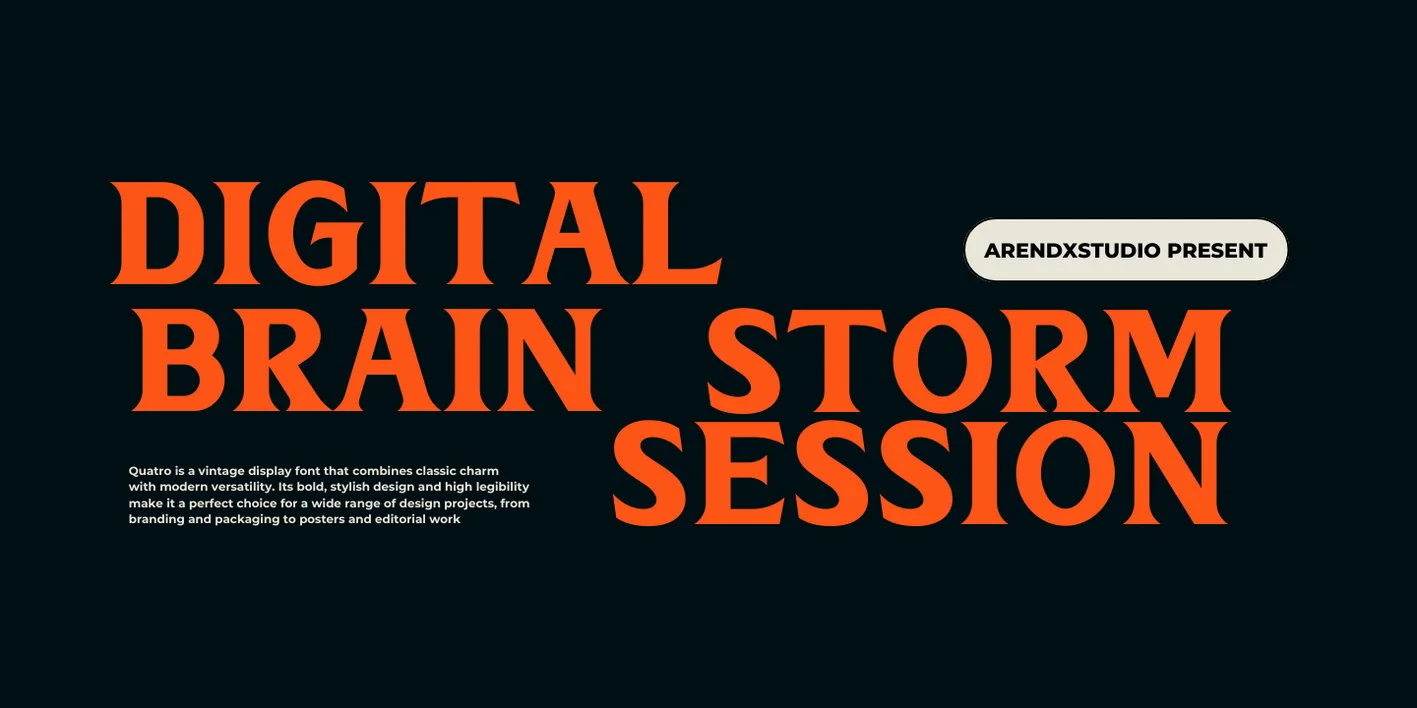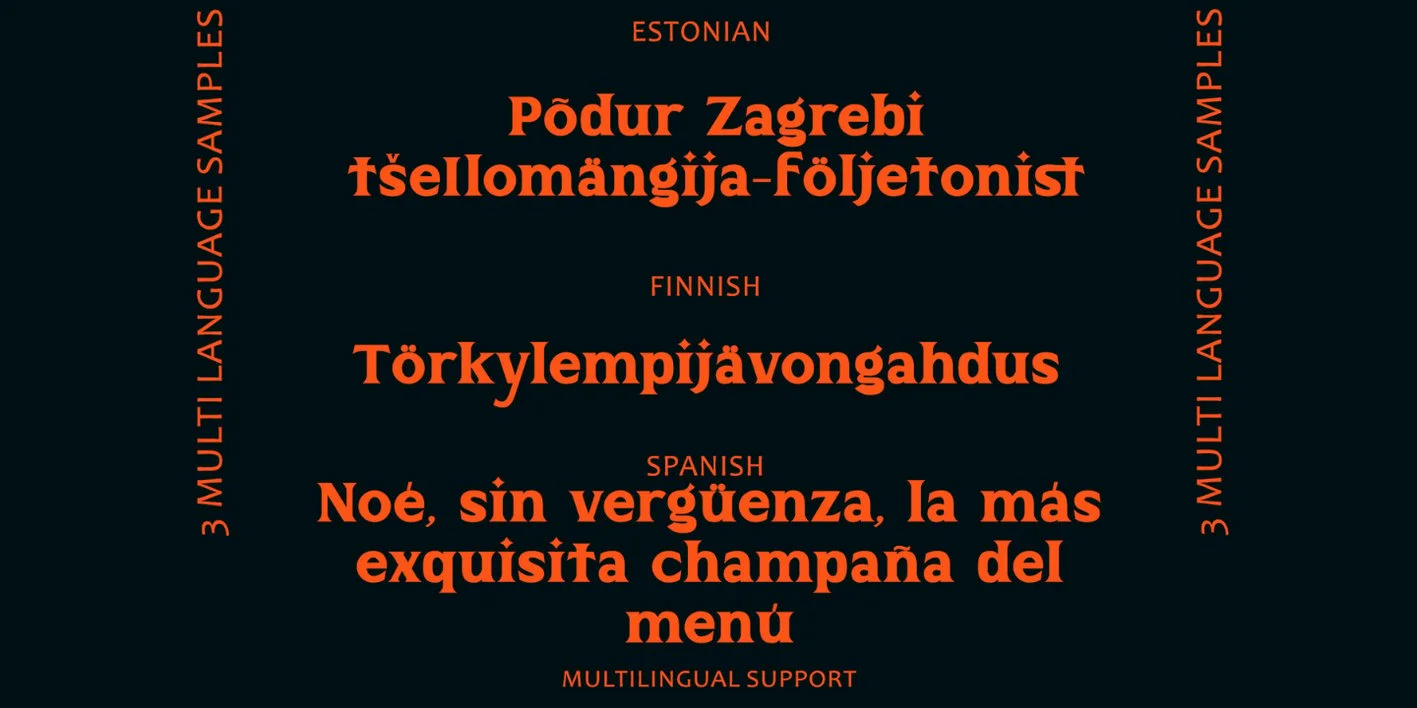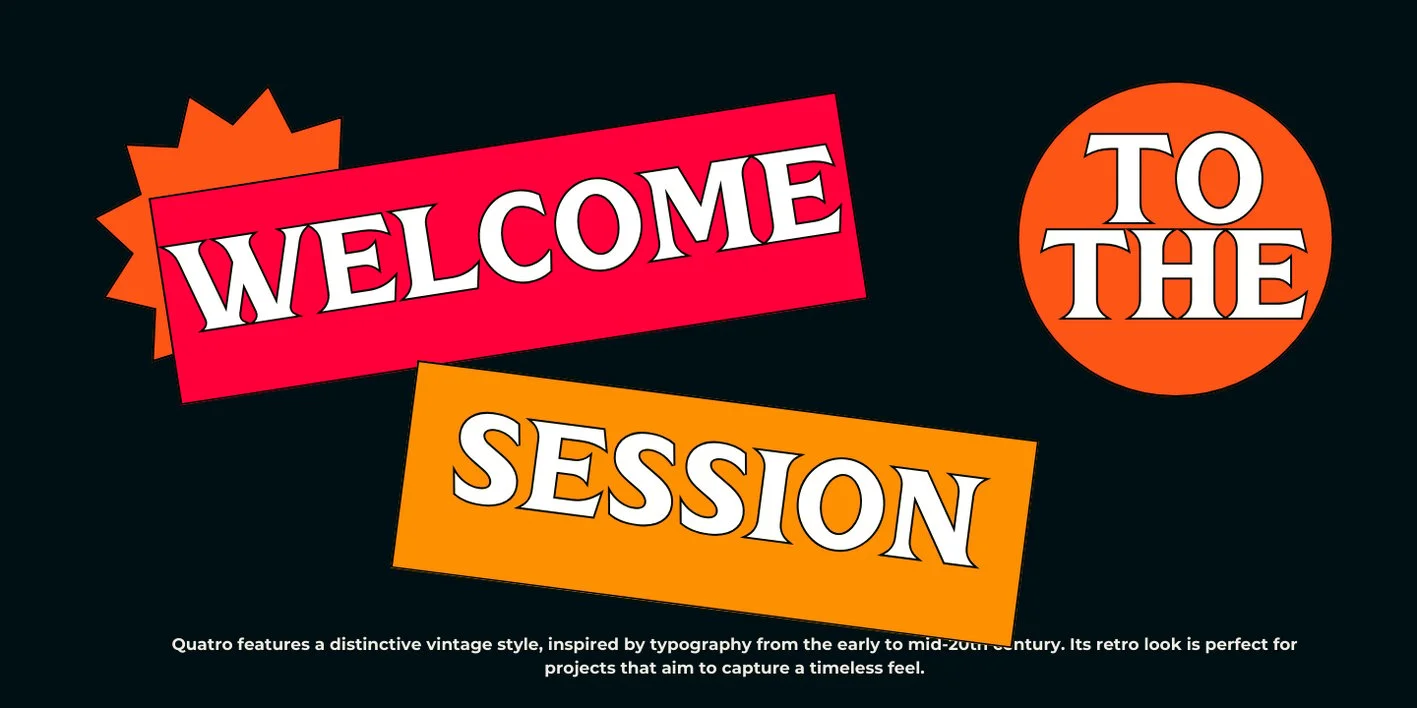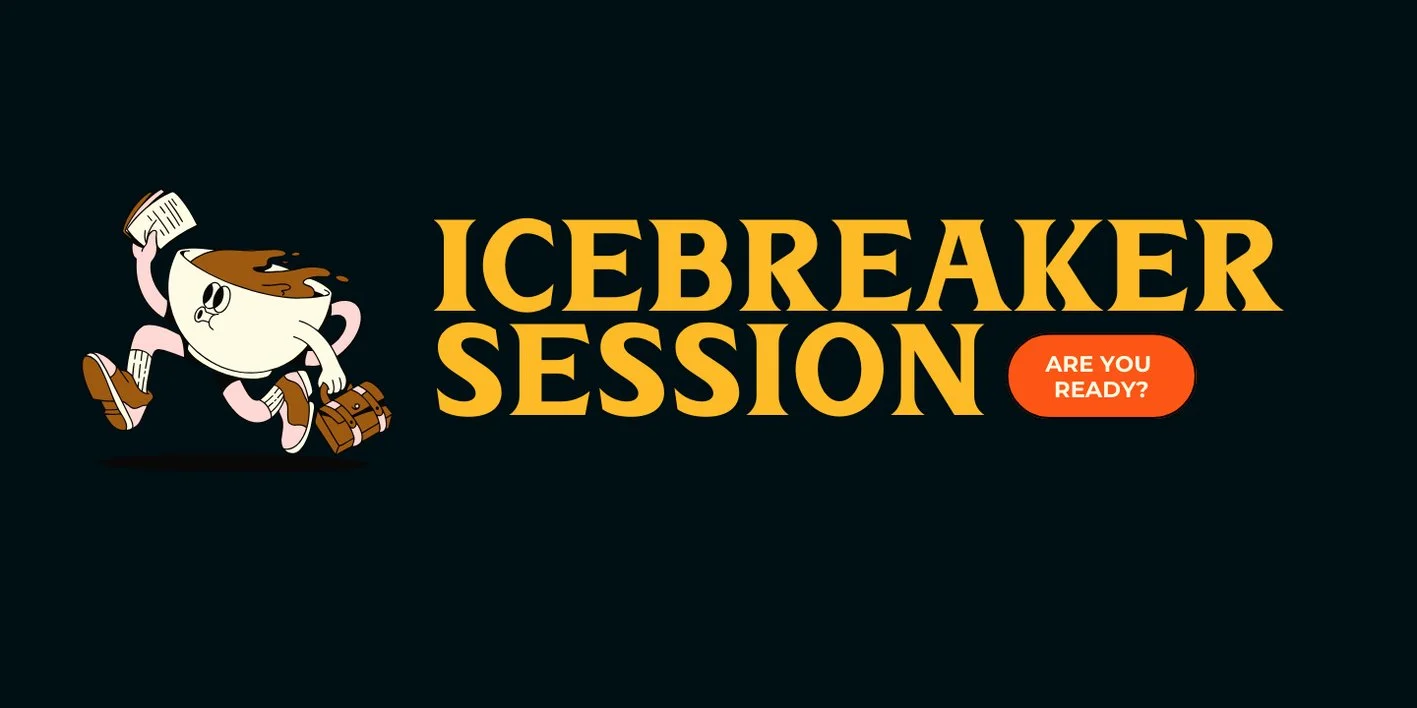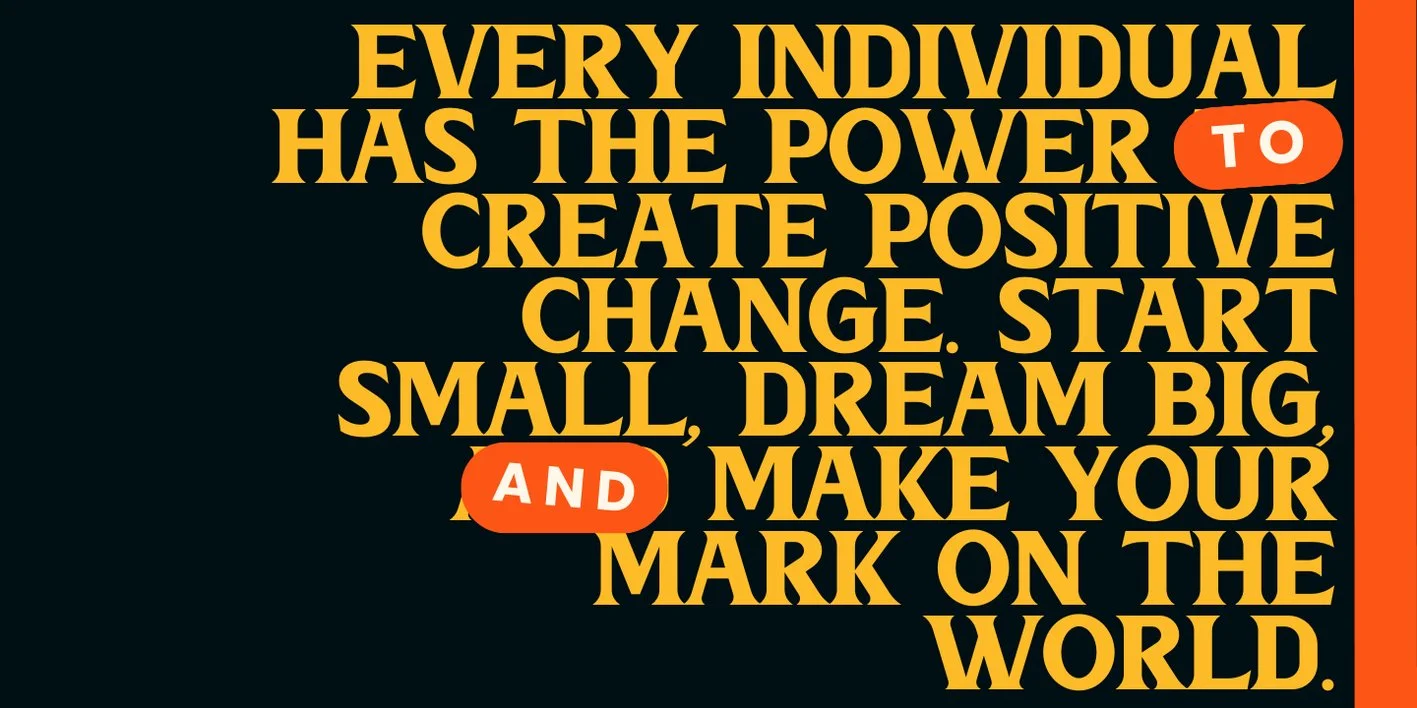
Quatro Font
There is a particular satisfaction in finding a typeface that delivers distinctive character without sacrificing readability without compromise. Quatro consistently provides it. The typeface brings a versatile sensibility to a broad range of creative disciplines, with visual harmony and precise spacing that holds up whether the work is print-first or screen-first.
In practice, Quatro proves particularly effective for brand identity systems, poster creation, social media graphics, web design, logo design. Designers reaching for it find that the type decisions feel resolved rather than laboured — a useful quality when client timelines are tight.
The range of applications extends to annual reports, product labels, environmental graphics, advertising campaigns. That breadth is deliberate: the proportions and spacing were stress-tested across a wide range of mock briefs before the typeface was finalised.
The consistent rhythm of Quatro across a full paragraph creates the kind of even grey value that makes extended reading comfortable, a detail that matters more in long-form content than its subtlety might suggest.
In-house creative teams at consumer brands find Quatro a reliable choice for projects that demand both personality and restraint. The design avoids the self-conscious quirkiness that dates quickly, settling instead for considered distinctiveness that holds up over time.